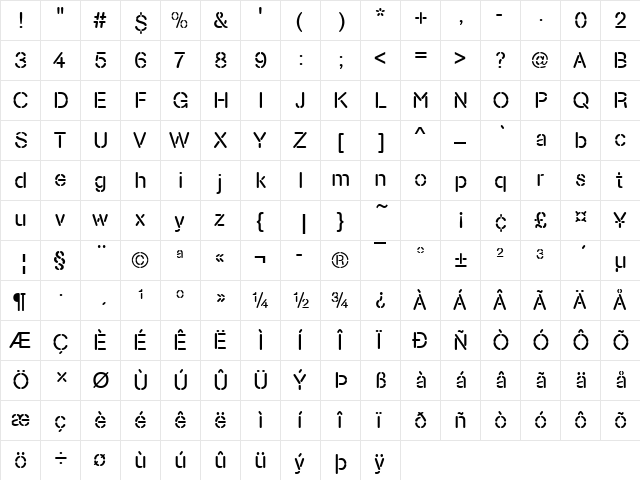
URWAccidaliaSteRouD Regular Font Preview
URWAccidaliaSteRouD Regular
URWAccidaliaSteRouD Regular Font Details
Design Context for URWAccidaliaSteRouD Typeface
URWAccidaliaSteRouD takes a measured approach to typography — its balanced proportions and neutral character make it a reliable workhorse for both digital and print work.
Pro Tip: Pair URWAccidaliaSteRouD with a font of contrasting weight or personality to build a more expressive typographic hierarchy.